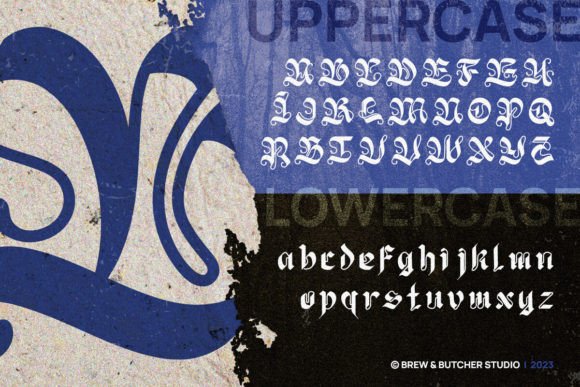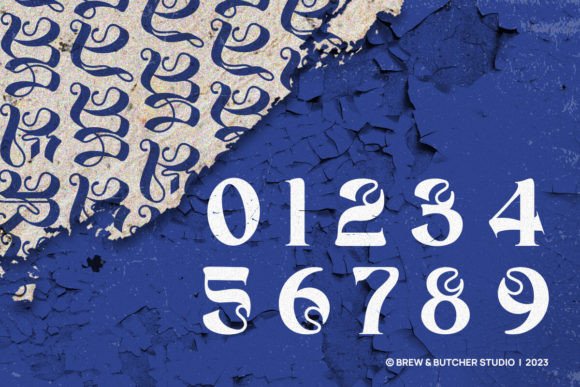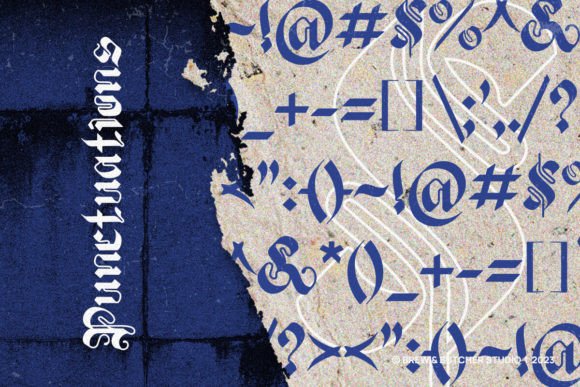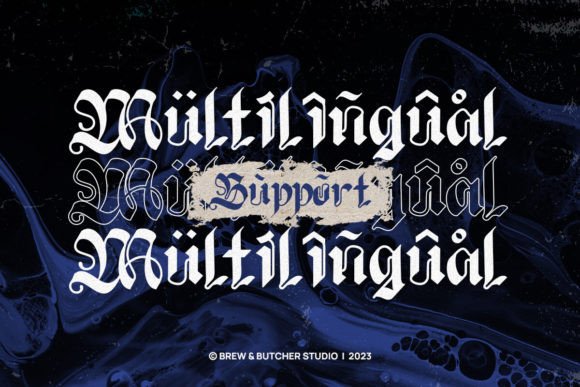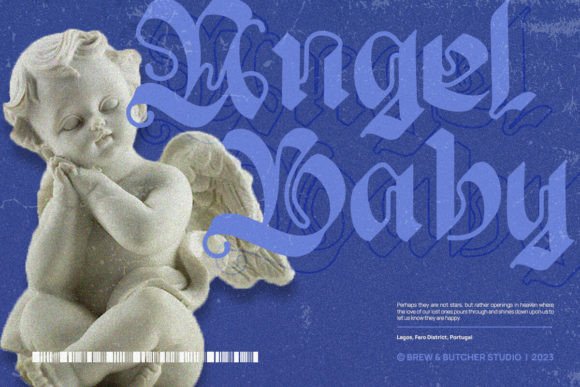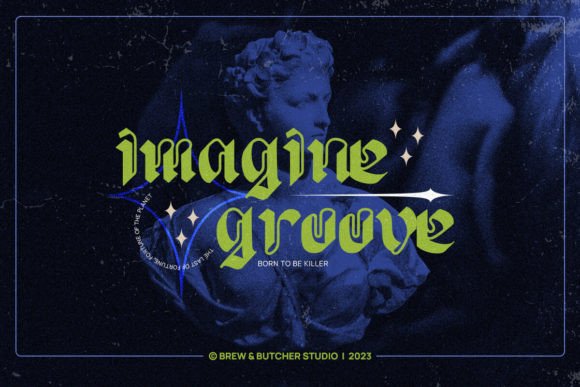
Discover the Elegance of Hangod Font: A Unique Black Letter Calligraphy Style
In the realm of typography, fonts play a crucial role in conveying messages, evoking emotions, and creating visual identities. Among the myriad of font styles available, Hangod Font stands out for its distinctive black letter calligraphy design, connected by curved lines that give the impression of unity and coherence. This article delves into the characteristics, uses, and appeal of Hangod Font, making it a valuable resource for designers, crafters, and typography enthusiasts.
What is Hangod Font?
Hangod Font is a black letter calligraphy style that is characterized by its connected curved lines, forming a cohesive and harmonious visual flow. This unique feature sets it apart from other font styles, lending it an air of sophistication and elegance. The font’s design exudes a slightly spooky and gothic vibe, yet it also boasts a bold and assertive presence, making it versatile for various design applications.
Key Features of Hangod Font
• Connected Curved Lines: The hallmark of Hangod Font is its use of curved lines that connect the bodies of the letters, creating a sense of unity and fluidity.
• Slightly Spooky and Gothic Impression: The font’s design elements evoke a subtle spookiness and gothic feel, adding depth and intrigue to any design.
• Bold and Assertive: Despite its elegant and curved lines, Hangod Font does not compromise on boldness, making it suitable for designs that require both sophistication and impact.
• Soft Curves: The softness of the curves used in Hangod Font adds to its attractiveness, providing a balanced and visually appealing aesthetic.
Best Use Cases for Hangod Font
Hangod Font’s unique blend of elegance, boldness, and gothic undertones makes it an excellent choice for a variety of design projects. Here are some of the best use cases:
• Headers and Headlines: The font’s bold and elegant appearance makes it perfect for headers and headlines, where grabbing the reader’s attention is paramount.
• Posters and Flyers: For promotional materials, Hangod Font can add a touch of sophistication and intrigue, making posters and flyers stand out.
• Banners and Landing Pages: Its bold and cohesive look makes it suitable for banners and landing pages, where clear communication and visual appeal are crucial.
• Portfolios and Nameplates: Designers and artists can use Hangod Font to add a personal touch to their portfolios and nameplates, showcasing their work with elegance.
• Album Covers: The slightly spooky and gothic impression of Hangod Font makes it an excellent choice for album covers, especially for music genres that align with these aesthetics.
Why Designers and Crafters Love Hangod Font
Designers and crafters appreciate Hangod Font for its versatility, aesthetic appeal, and the unique touch it brings to their projects. Here are a few reasons why:
• Versatility: Hangod Font can be used across a range of design projects, from digital to print, due to its clear yet elegant appearance.
• Emotional Connection: The font’s ability to evoke a slightly spooky and gothic impression, alongside its boldness, allows designers to create an emotional connection with their audience.
• Consistency: Hangod Font maintains its attractiveness and consistency across different sizes and applications, making it a reliable choice for designers.
Hangod Font is a unique and captivating black letter calligraphy style that offers designers and crafters a versatile tool for their creative projects. Its connected curved lines, slightly spooky and gothic impression, boldness, and soft curves make it an attractive choice for a wide range of applications. Whether you’re designing headers, posters, flyers, or album covers, Hangod Font can add a touch of elegance and intrigue, setting your work apart in the world of typography and design.